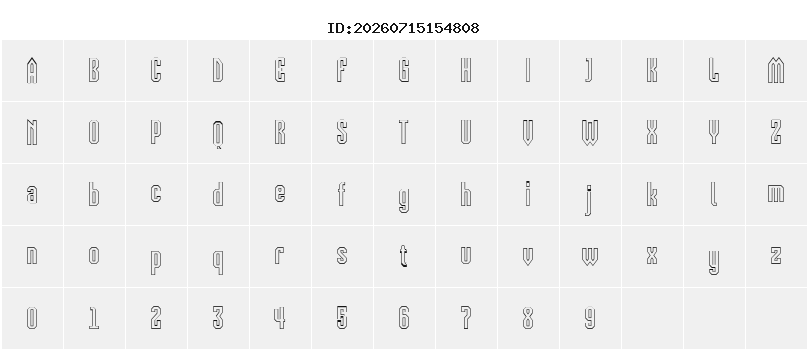
• Font Name: a_VizoraOtl
• Designer: W.Chufarofsky & M.Slutsker
About a_VizoraOtl.ttf
a_VizoraOtl.ttf is a modern, elegant sans-serif font designed for ultimate readability and visual harmony. Perfect for branding, headlines, web design, and print materials.